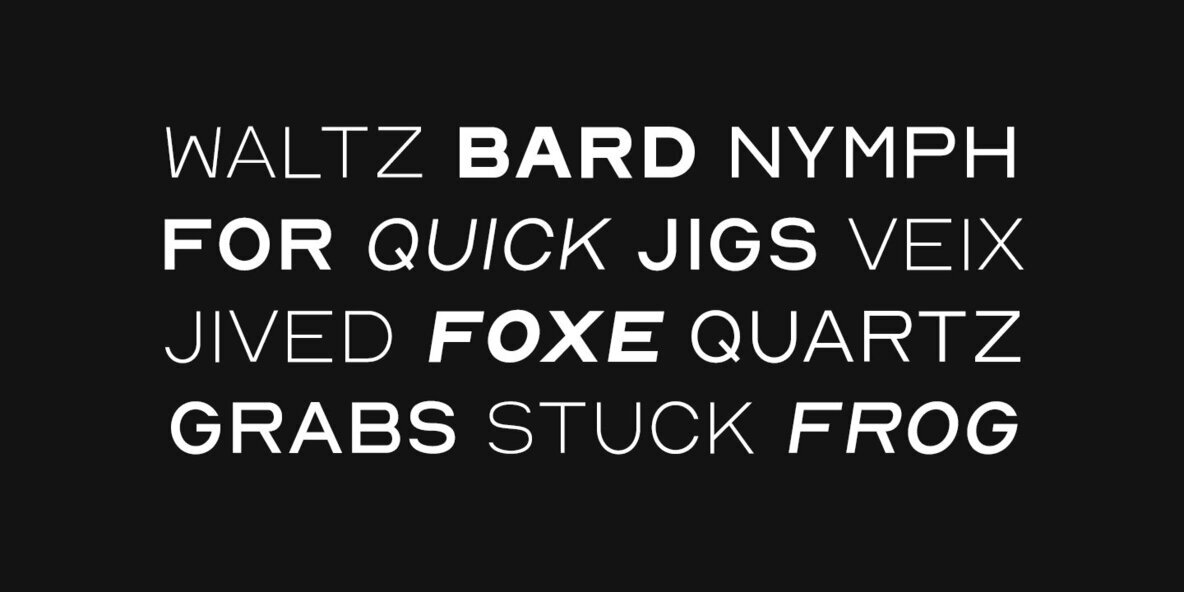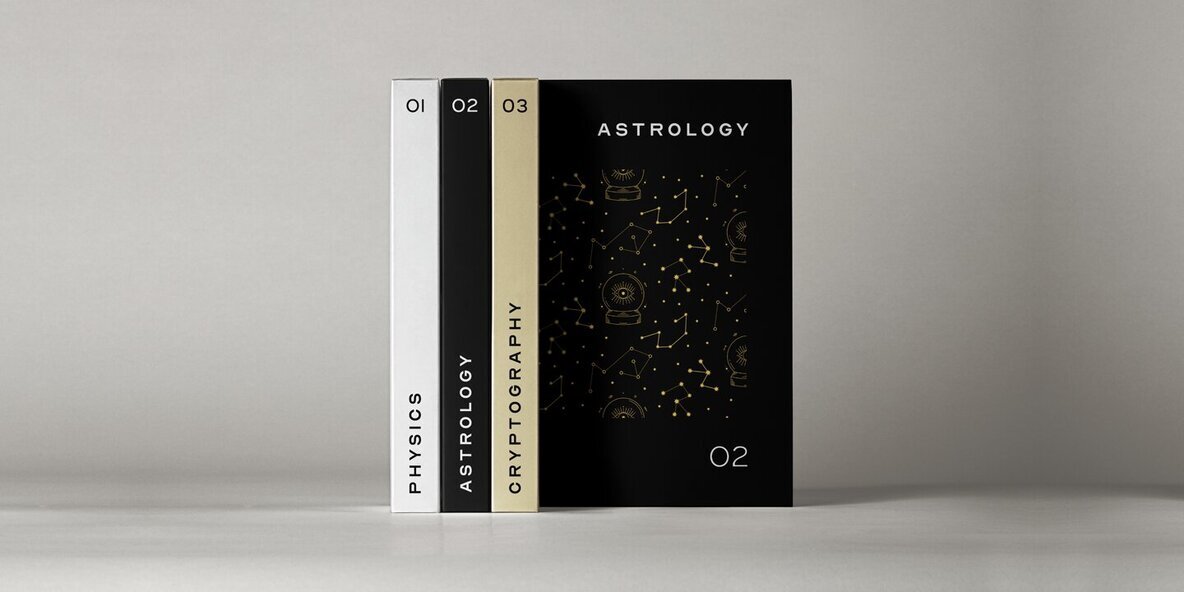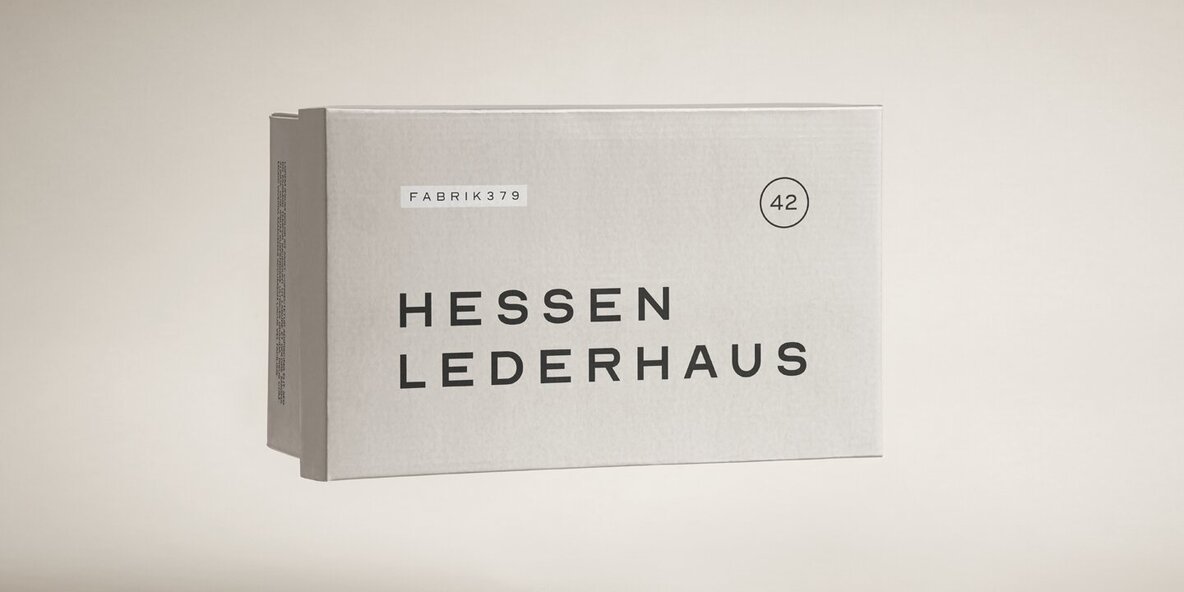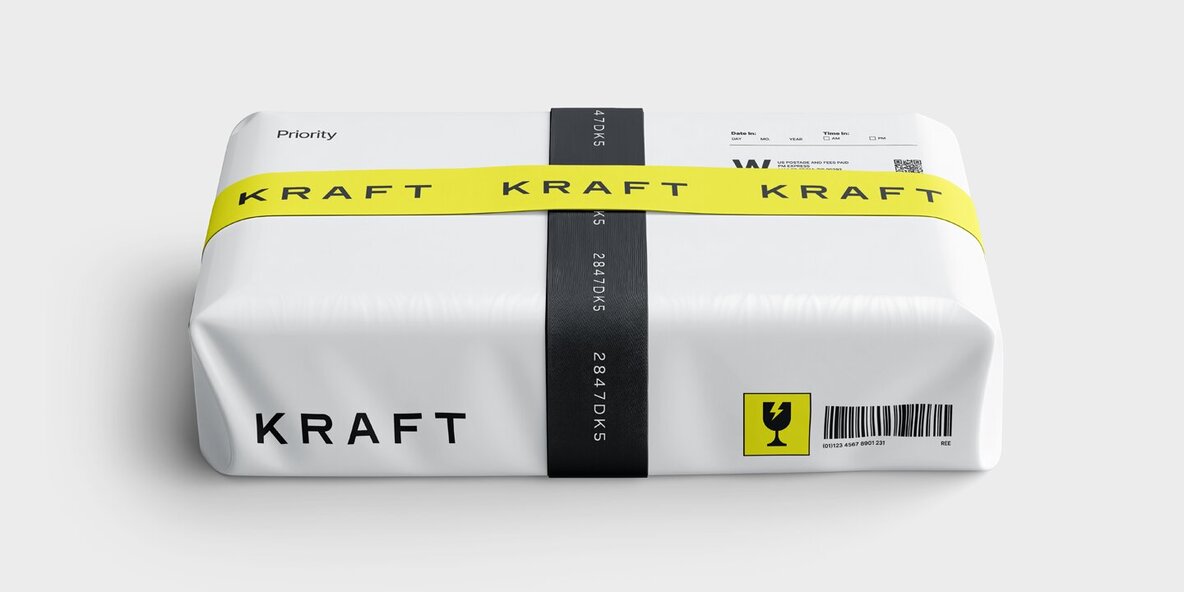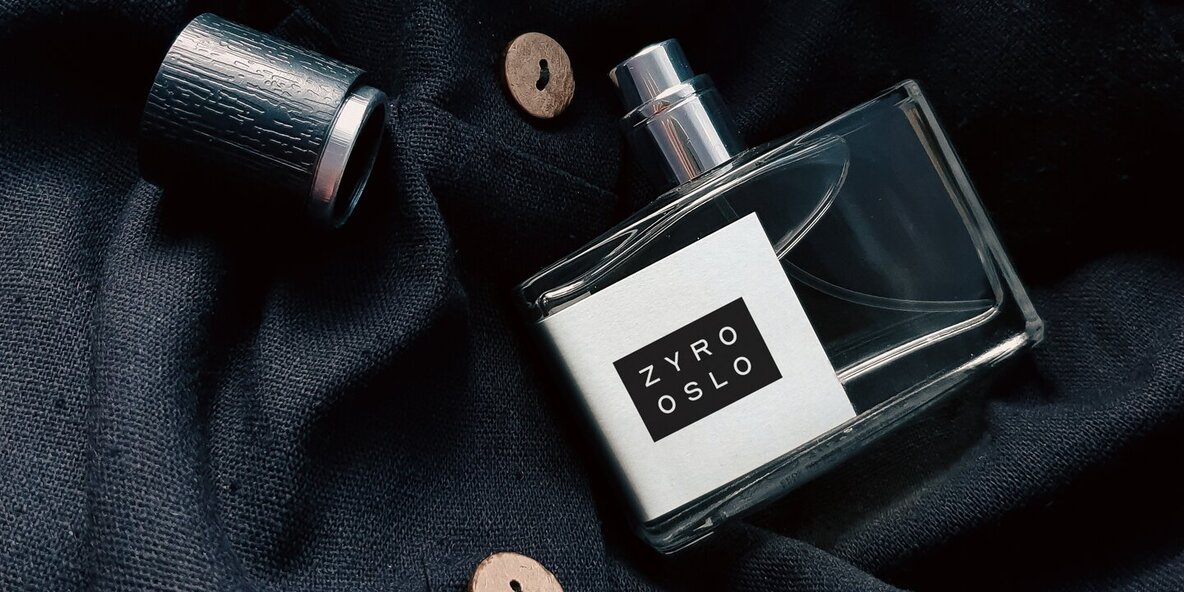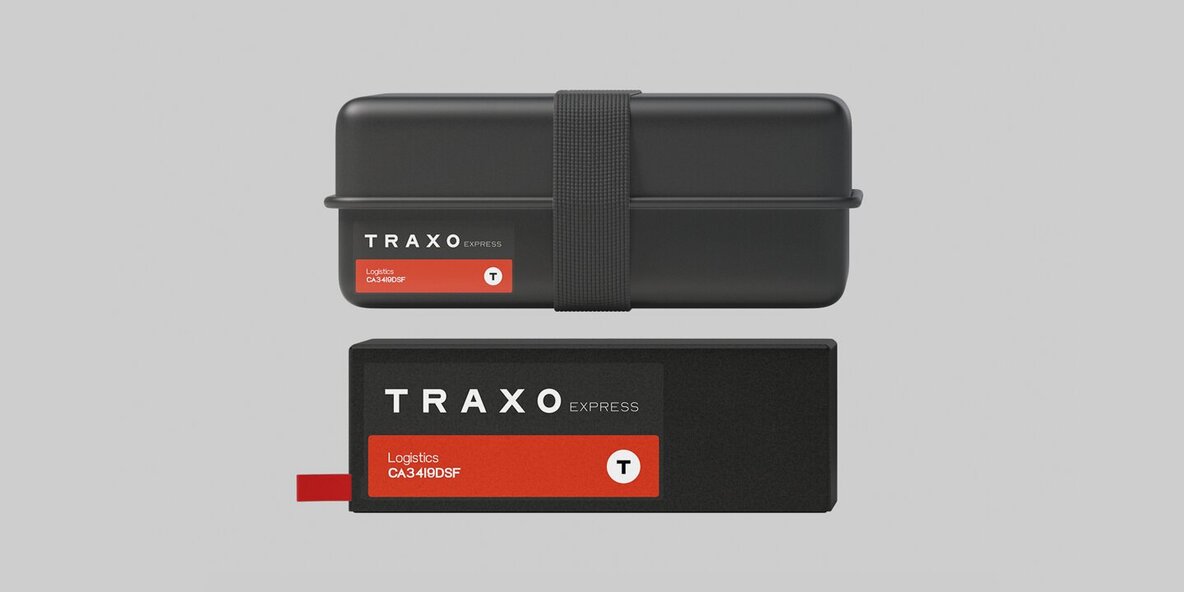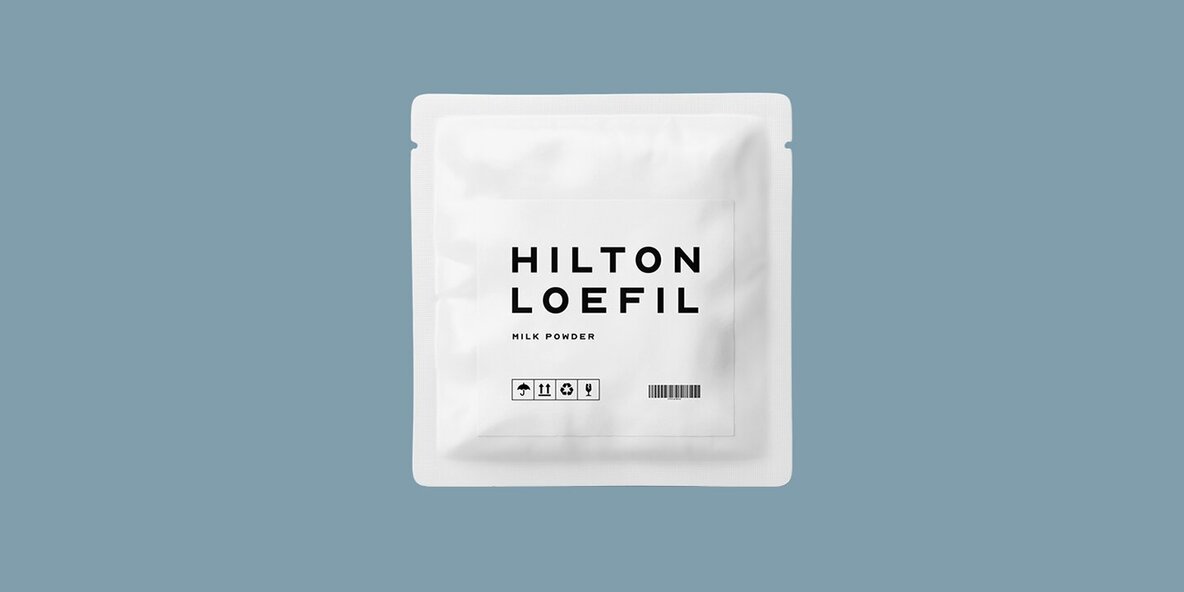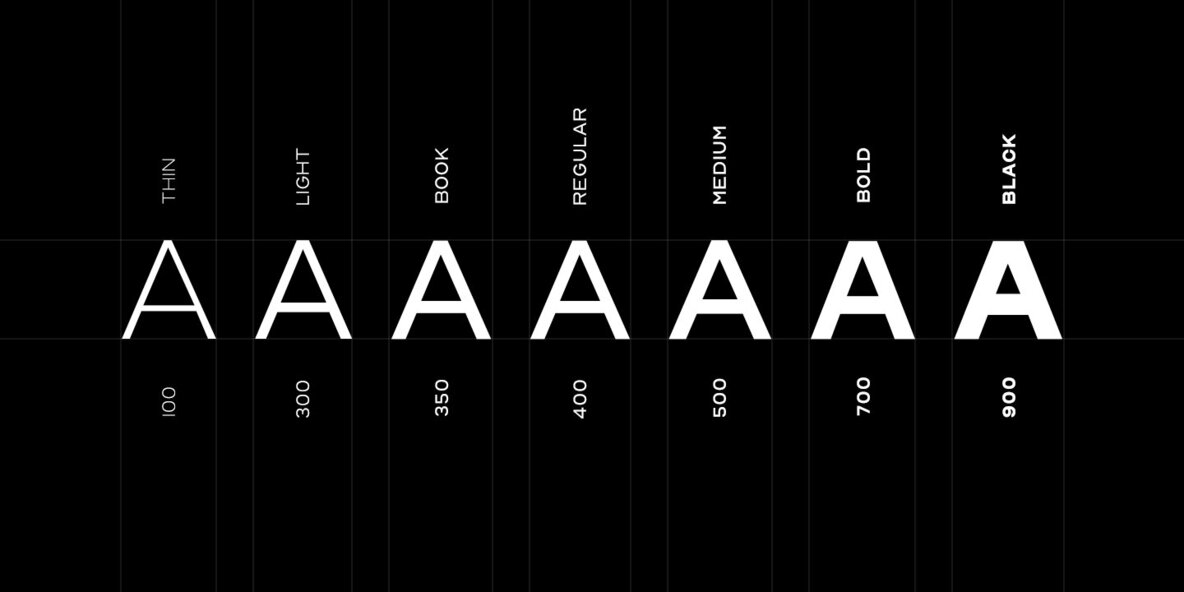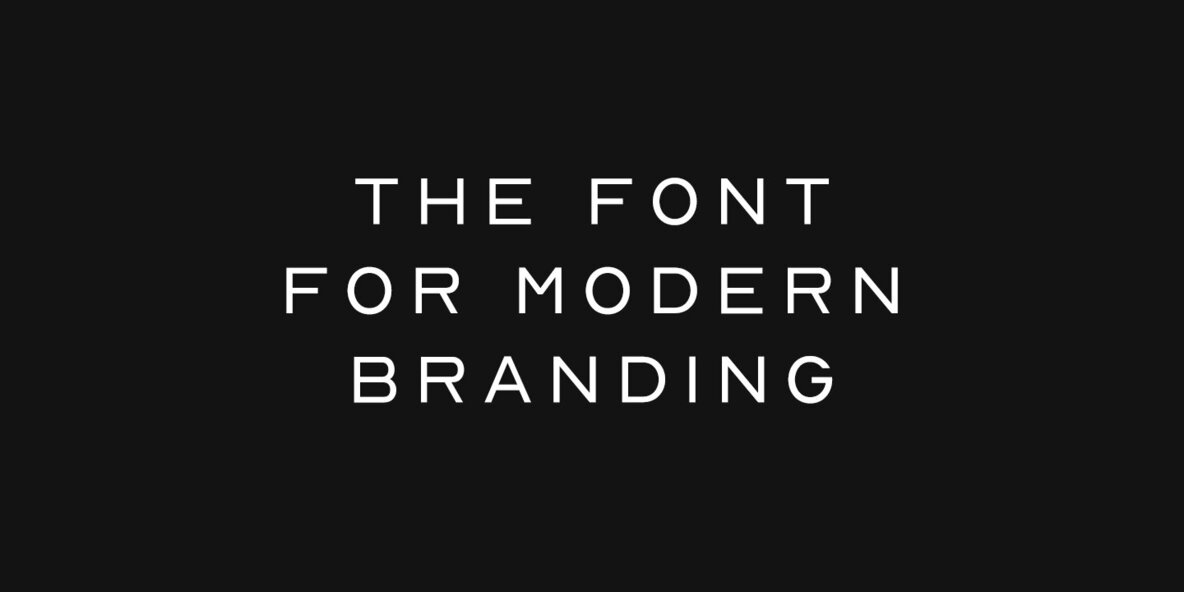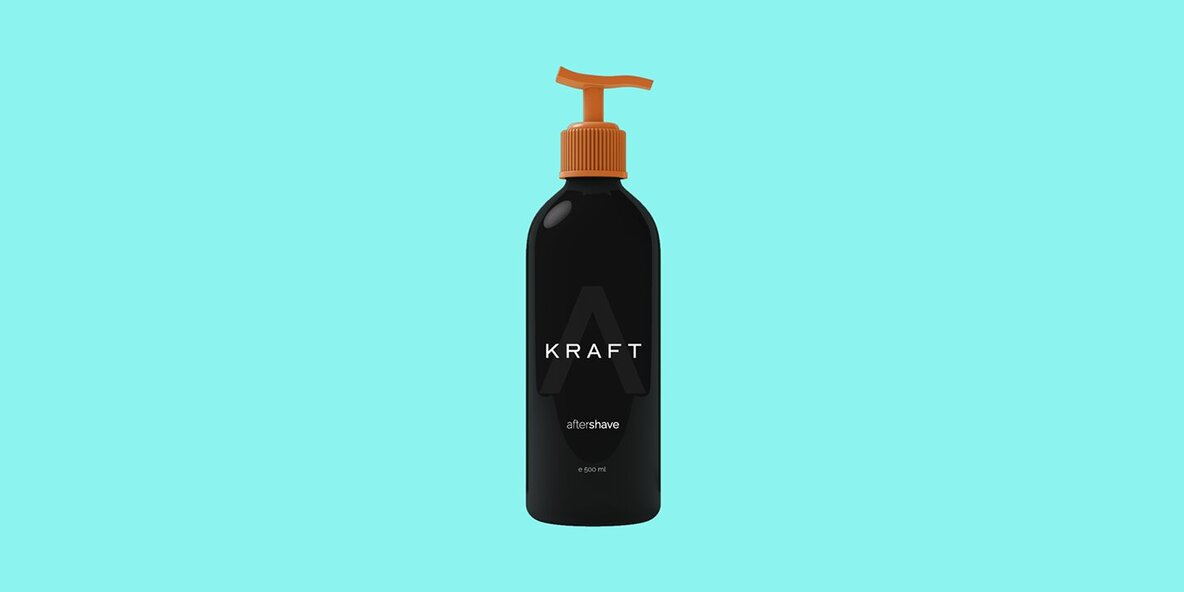
Nord Display Font
Nord Display is a minimal & modern Sans Serif / Display / All-Caps font family that stands out from the crowd. NORD will be best suited for creating logotypes, branding, headlines, corporate identities, and marketing materials for web & print as well as any type of minimal designs. Thanks to its efficient letter spacing options, this versatile font offers endless possibilities for modern and minimalist designs, including logos, headlines, and identities. Please see the included demo graphics to get an idea about the capability of this typeface when used for branding and marketing material design. The NORD DISPLAY font family comes with 14 fonts, including 7 upright weights (THIN / LIGHT / BOOK / REGULAR / MEDIUM / BOLD / BLACK) as well as Italic versions of all 7 weights. Each weight includes extended language support including Western European & Central European sets. A total of 276 glyphs are included (updated as version v2.5).